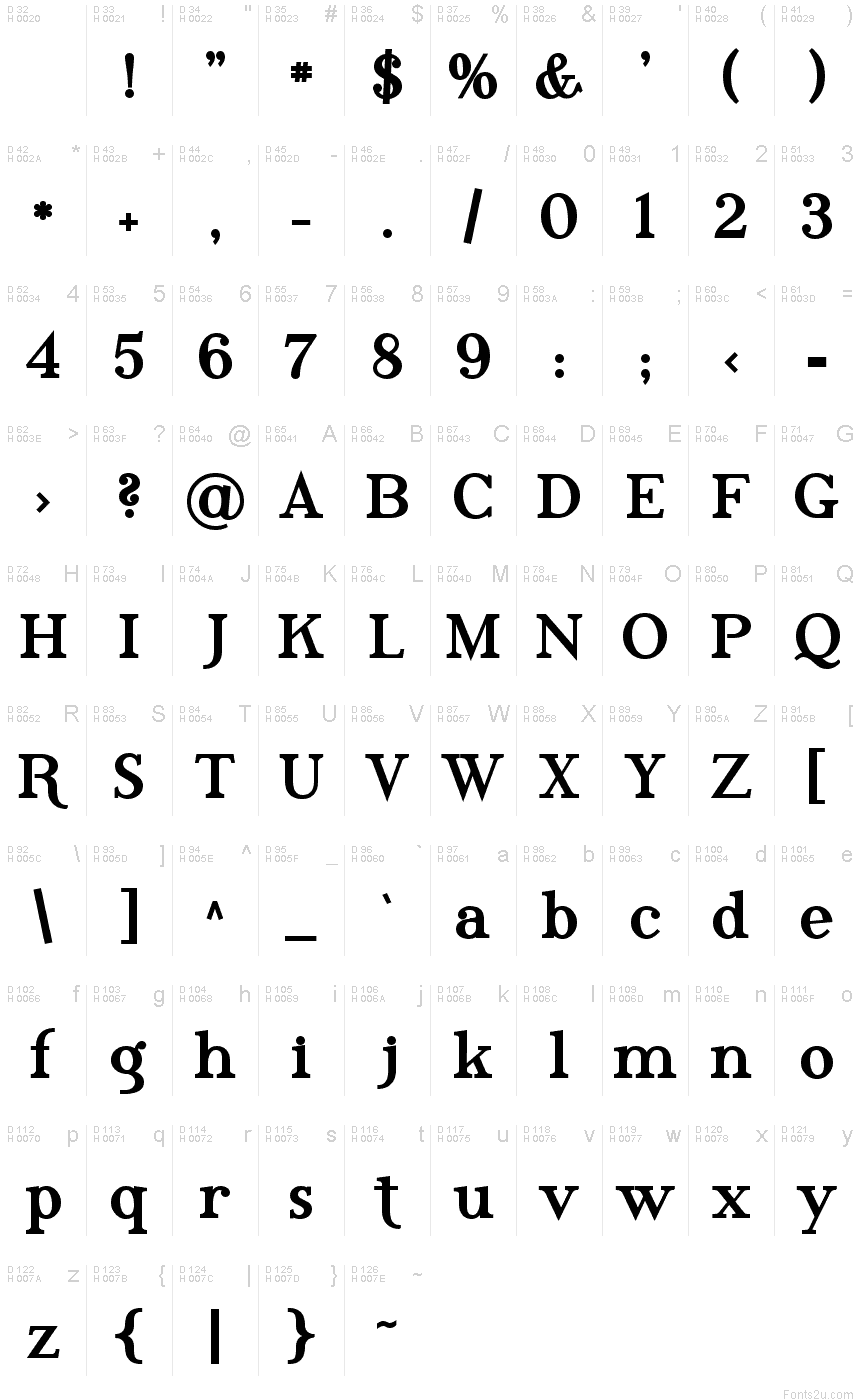
SF Phosphorus Triselenide by Derek Vogelpohl of ShyFoundry is a free high-contrast serif modeled on stately nineteenth-century display lettering. Its broad vertical strokes meet hairline joins and broad, flat serifs, giving the letters a crisp architectural build. Rounded forms soften the otherwise imposing effect.
Luxury publishers and heritage fashion labels could use its period formality for cover lines, premium packaging, and invitation designs aimed at a cultured audience. The abrupt shifts in stroke weight also suit museum posters and literary merchandise, where the lettering can become a recognizable, slightly theatrical part of the wider product or event identity.
SF Phosphorus Triselenide